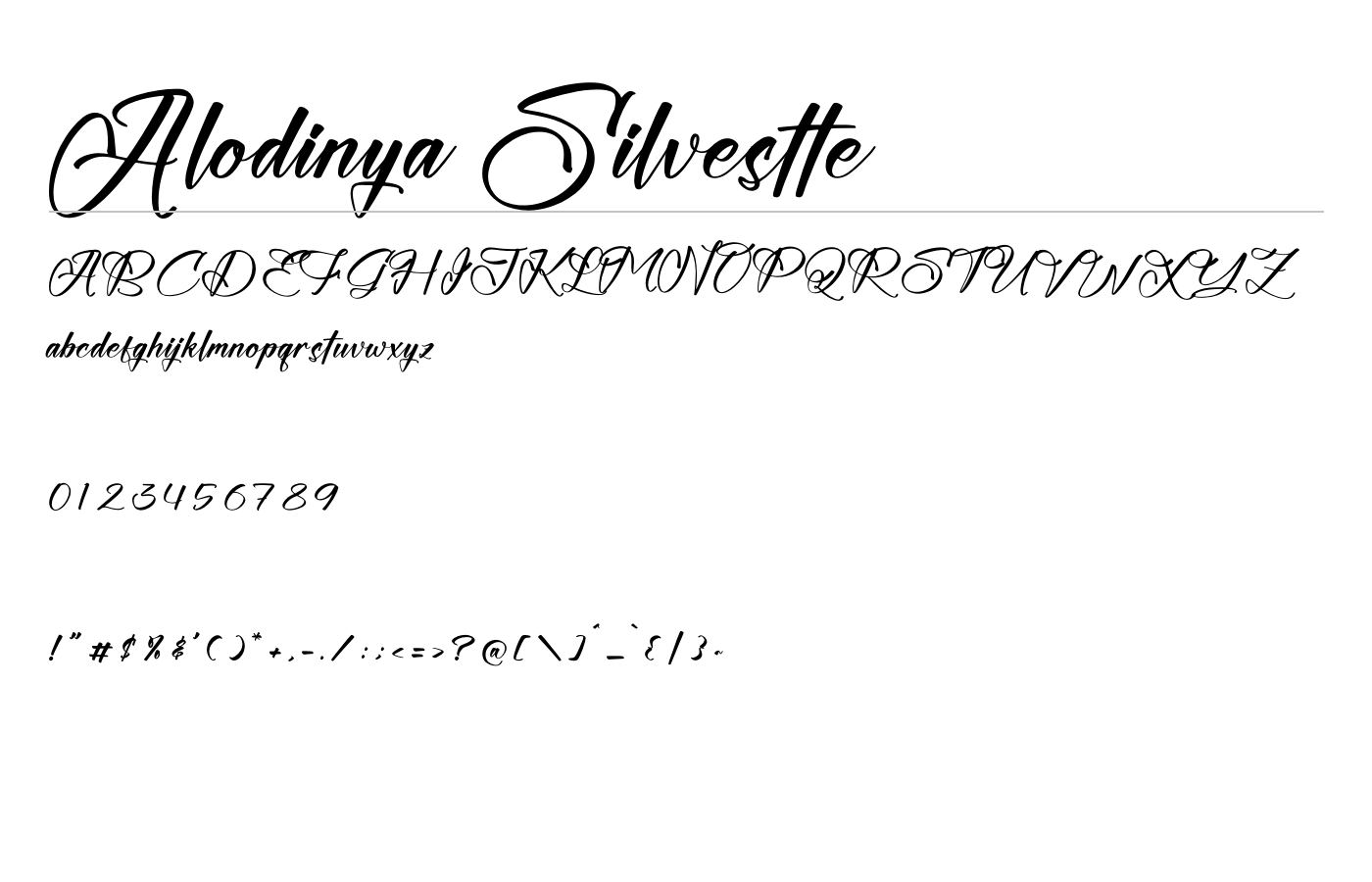
Alodinya Silvestte is an elegant script font characterized by its flowing, calligraphic strokes and delicate, refined curves. Its smooth, high-contrast lines and graceful letterforms give it a sophisticated, luxurious feel, perfect for wedding invitations, fashion branding, and upscale editorial designs where a touch of classic charm and personal elegance is desired. This font works best in headlines or decorative uses that require a stylish, feminine flair.
Alodinya Silvestte Font
About Alodinya Silvestte Font